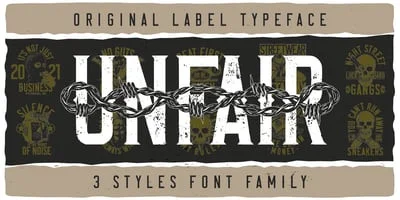
Unfair Font
The Unfair Font excels in various design applications including social justice advocacy branding, protest movement communications, inequality awareness campaigns, activist organization materials, reform initiative promotions, social change event signage, justice-focused nonprofit identities, equality campaign marketing, civil rights documentation, and powerful advocacy projects that demand social justice intensity and reform sophistication.
What makes the Unfair Font exciting is its bold embodiment of social justice passion and inequality awareness through letterforms that capture the essence of advocacy movements and the determined spirit of social reform activism. This typeface demonstrates exceptional conviction through carefully crafted characters that suggest the urgent need for social change, the passionate voice of justice advocates, and the unwavering determination that drives meaningful social reform and equality advancement. The font's advocacy personality makes it perfect for nonprofit organizations and social justice groups seeking to communicate reform authenticity, equality passion, and the kind of determined activism that creates transformative social experiences through typography that literally speaks with justice conviction.
The Unfair Font family typically includes impactful weight variations that enhance the social justice aesthetic, featuring bold advocacy styling and extended character sets optimized for campaign communications and activism applications. These family options often include reform-inspired alternates, justice symbols, and advocacy decorative elements that provide designers with comprehensive tools for creating authentically activist typography that celebrates social change while maintaining contemporary design appeal and movement credibility.
Social justice professionals and advocacy organizations consistently choose Unfair Font for projects requiring typography that communicates reform authenticity and social justice sophistication. This typeface delivers exceptional performance in advocacy marketing, social justice branding, and campaign communications where establishing credibility and creating powerful activist atmosphere is essential for social movement engagement. The font's justice character makes it particularly effective for campaign and documentary applications. Download Unfair Font today to access this socially powerful typeface that transforms advocacy communications with its justice elegance and reform sophistication, creating compelling social change experiences that honor the magnificent courage of social justice advocates while celebrating the determined activism that defines authentic equality movements and social reform excellence.